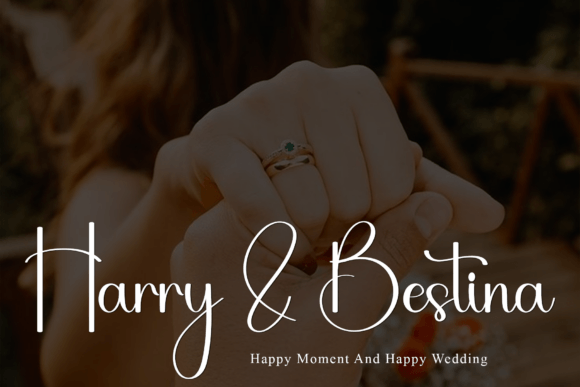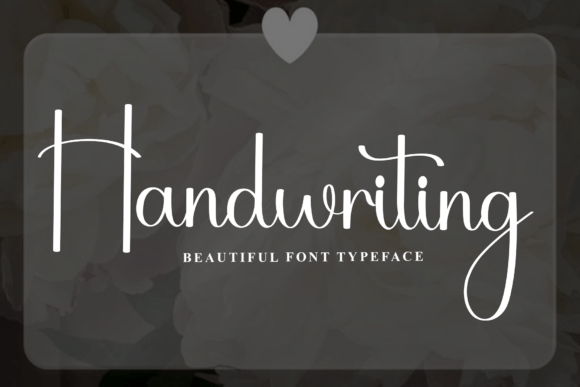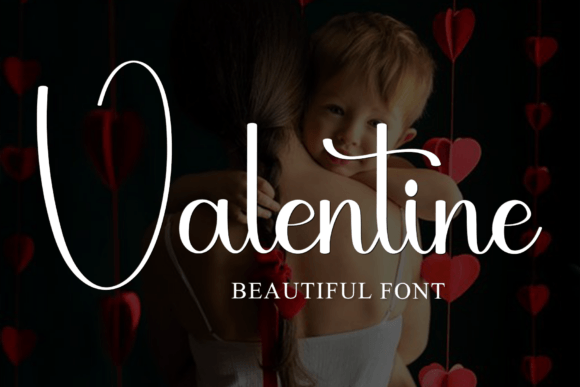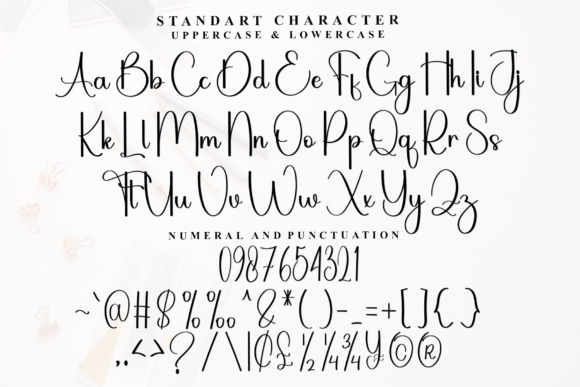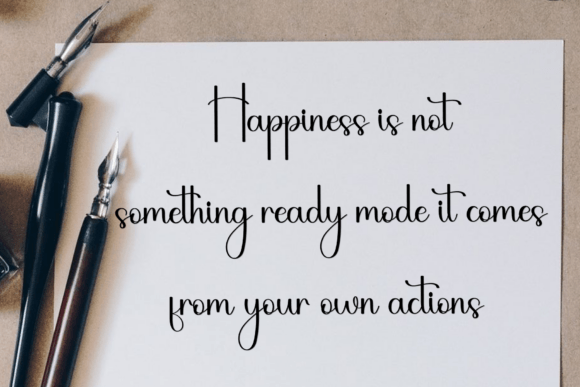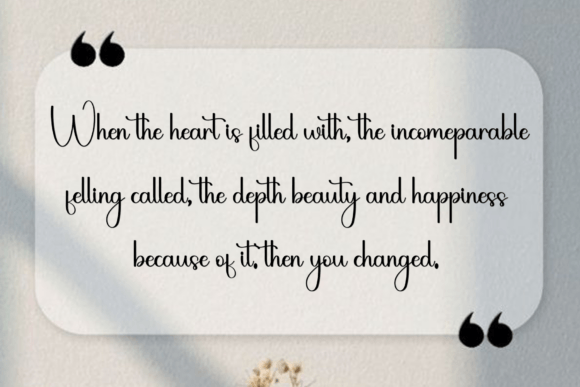
Love is in the Air: Discover the Perfect Font for Your Valentine’s Day Projects
As you sit down to create the perfect Valentine’s Day card or social media post, you’re probably searching for the perfect font to capture the warmth and love of the season. We’ve all been there – staring at rows of fonts, trying to find the one that exudes the right amount of romance and playfulness. But what if you could find a font that not only fits the bill but also adds a unique touch to your design?
Enter the Better Valentine Font, a casual and creative font that’s designed to make your projects shine. With its round, playful strokes and charming, hand-drawn aesthetic, this font is perfect for personal projects, invitations, and social media graphics. Whether you’re a seasoned designer or a DIY enthusiast, the Better Valentine Font is sure to bring a smile to your face and a touch of personality to your designs.
Better Valentine Font Key Features
- Font Family: Better Valentine
- Unique Characteristics: Hand-drawn, cursive script font with a romantic and elegant feel, ideal for Valentine’s Day, weddings, and other special occasions
Designer Review: Better Valentine Font
I recently had the chance to work with the Better Valentine Font, and I wanted to share my honest thoughts on this beautiful script font.
- Calls to attention: The Better Valentine Font is perfect for creating eye-catching headlines and titles. Its elegant, handwritten style is sure to grab the viewer’s attention.
- Warm and inviting: This font has a unique, personal touch that makes it perfect for projects that require a friendly and approachable tone.
- Legibility: Despite its script nature, the Better Valentine Font is surprisingly legible, making it suitable for body text as well.
- Character count: The Better Valentine Font may not be the best choice for projects that require a large amount of text. Its script nature can make it time-consuming to type out.
- Style consistency: While the font looks great in most situations, its style can become inconsistent when used in long blocks of text or with certain combinations of letters.
The Better Valentine Font is a beautiful addition to any designer’s toolkit. Its unique style and legibility make it perfect for a wide range of projects, from branding to packaging to editorial design. While it may have some limitations, the benefits far outweigh the drawbacks. I highly recommend giving this font a try!
Practical Application Guide for Better Valentine Font
Tip: Use the Better Valentine Font to add a touch of elegance to your Valentine’s Day designs, such as invitations, cards, and social media posts.
Tip: Use the Better Valentine Font to create custom Valentine’s Day graphics, such as banners, posters, and greeting cards.
Tip: Use the Better Valentine Font to add a touch of romance to your PowerPoint presentations or Word documents.
The Better Valentine Font is perfect for:
- Valentine’s Day designs, such as invitations, cards, and social media posts.
- Custom graphics, such as banners, posters, and greeting cards.
- PowerPoint presentations and Word documents that require a touch of romance.
Alternatives to Better Valentine Font
Playfair Display is a luxurious and elegant font, perfect for creating a sense of sophistication and refinement. It features beautiful swashes and flourishes, making it ideal for wedding invitations, luxury brands, and high-end design projects.
Comparison to Better Valentine Font: While both fonts have a romantic feel, Playfair Display is more luxurious and ornate, making it better suited for high-end designs. Better Valentine Font is more versatile and can be used for a wider range of projects.
Great Vibes is a modern and elegant font, perfect for creating a sense of romance and sophistication. It features a clean and minimalist design, making it ideal for wedding invitations, love letters, and other romantic projects.
Comparison to Better Valentine Font: Great Vibes is more modern and minimalist compared to Better Valentine Font, which has a more traditional feel. Great Vibes is better suited for contemporary designs, while Better Valentine Font is better suited for more classic designs.